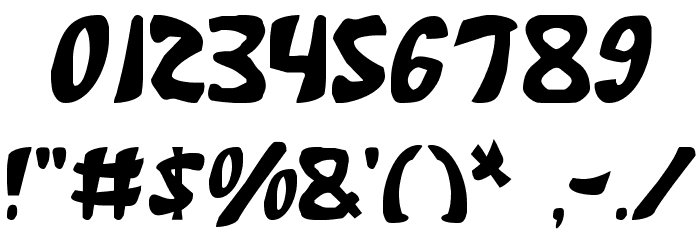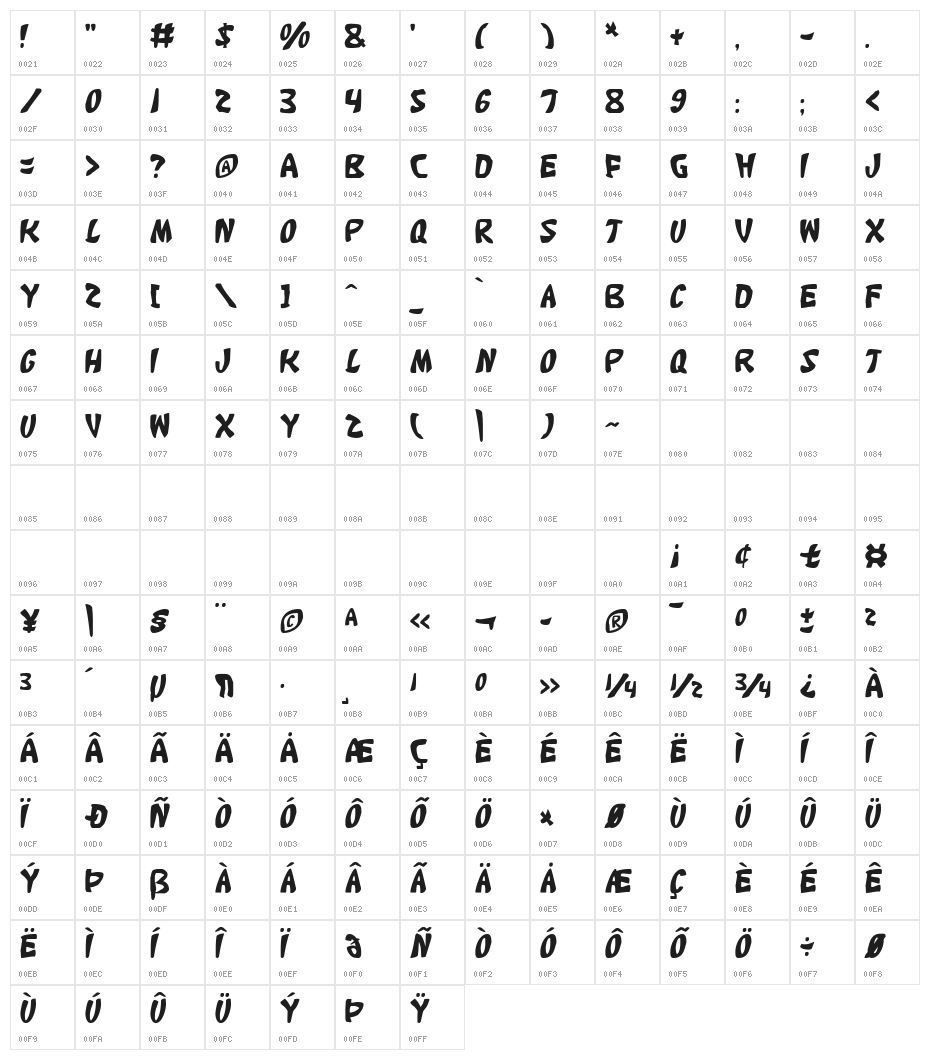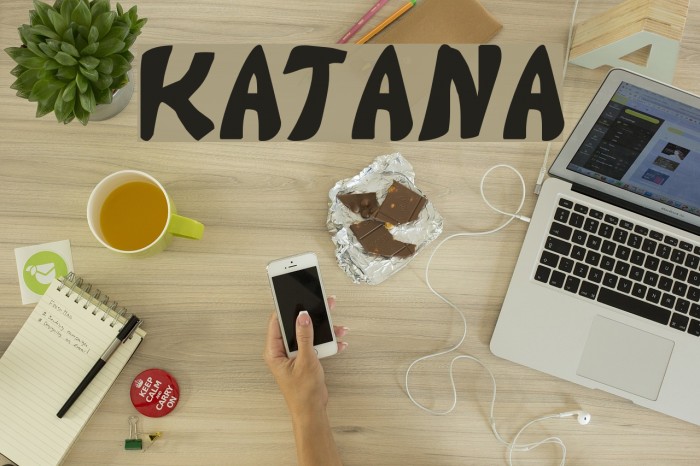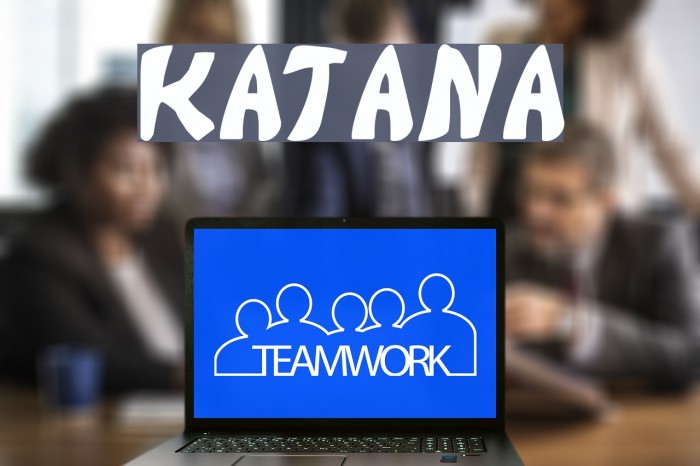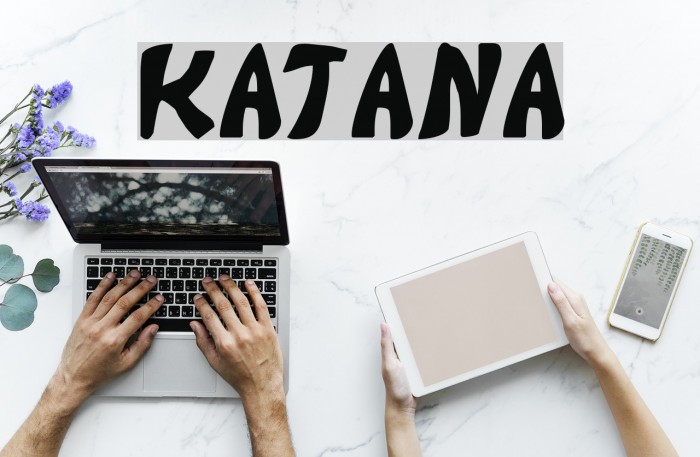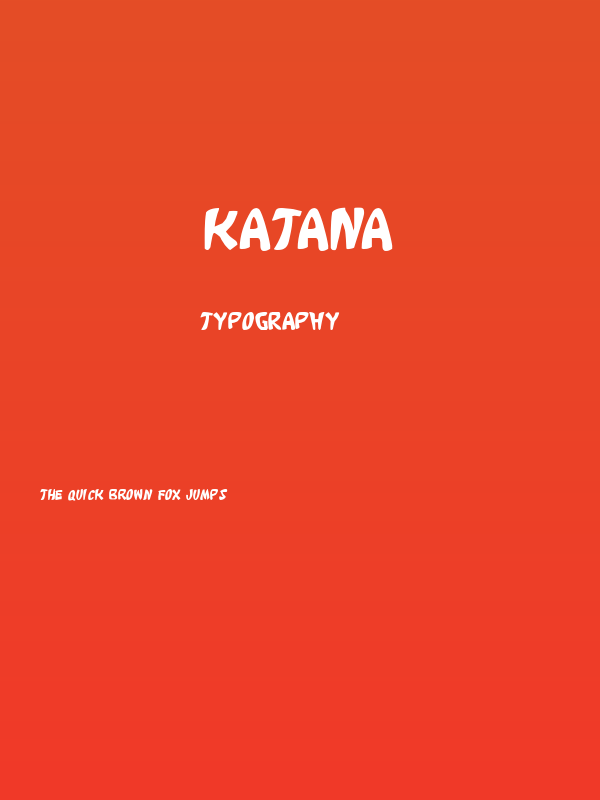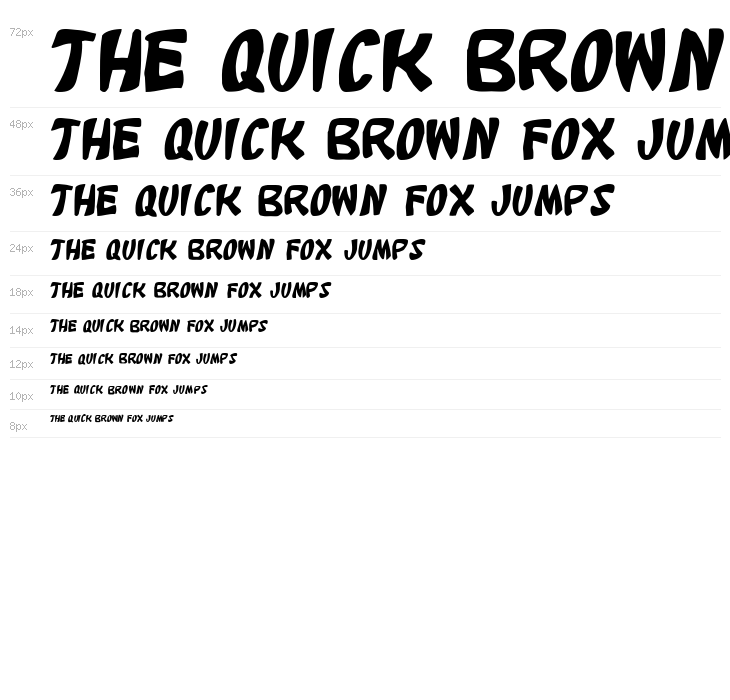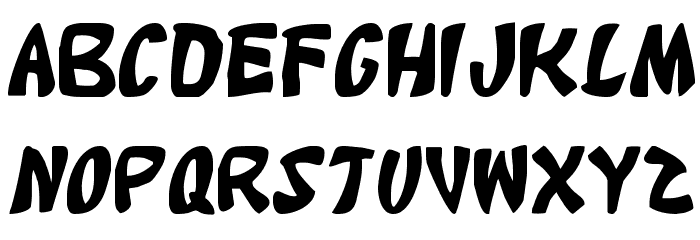
Katana Font
Katana Description
This font exhibits a bold and dynamic style with a strong presence. The characters are crafted with a brush-like appearance, giving them a hand-painted feel. Each letter is distinct, with varying stroke widths that add a sense of movement and energy. The uppercase and lowercase letters maintain a consistent style, while the numbers and special characters complement the overall design. The font's playful yet assertive nature makes it suitable for projects that require a standout visual impact.
| Proposed Projects | Ideal for branding, posters, headlines, and any design needing a bold, artistic touch. |